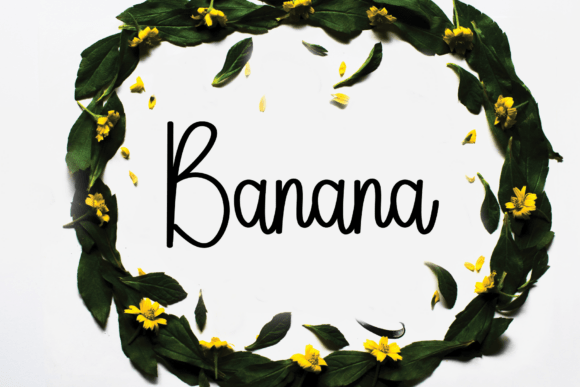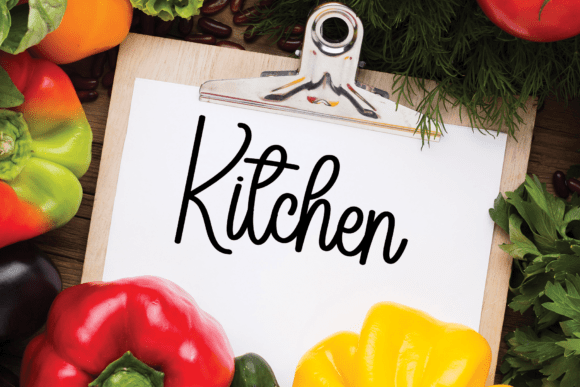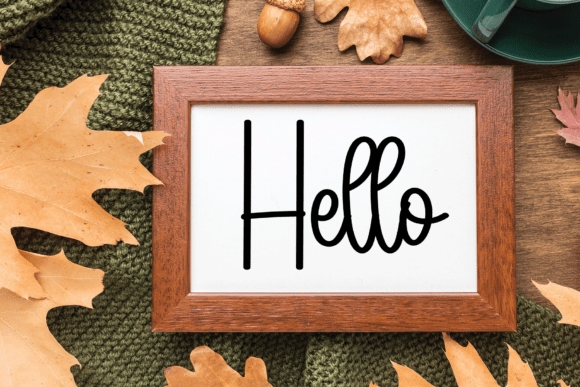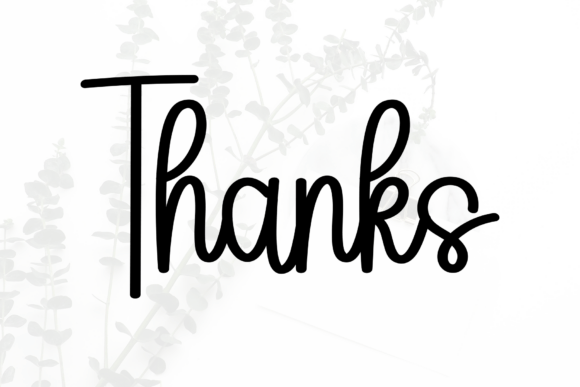
Introducing Amnesty Font: A Sweet and Beautiful Handwritten Delight
Are you a designer or crafter looking for a unique and charming font to add a personal touch to your projects? Look no further than Amnesty Font, a sweet and beautiful handwritten font that is sure to captivate your audience. With its distinctive characters that dance along the baseline, Amnesty Font is the perfect addition to any design project you wish to create.
What Makes Amnesty Font So Special?
Amnesty Font is a one-of-a-kind handwritten font that boasts a range of characteristics that set it apart from other fonts. Its sweet and beautiful appearance is achieved through the careful crafting of each character, which is designed to flow effortlessly along the baseline. This creates a sense of movement and energy, adding a cozy accent to any design project.
Features of Amnesty Font
• Handwritten with love: Amnesty Font is a genuine handwritten font, crafted with care and attention to detail to ensure a personal and authentic feel.
• Dancing characters: The characters in Amnesty Font are designed to dance along the baseline, creating a sense of movement and playfulness.
• Sweet and beautiful: With its delicate and charming appearance, Amnesty Font is the perfect choice for designers and crafters looking to add a touch of sweetness to their projects.
• Cozy accent: Amnesty Font is designed to add a cozy accent to any design project, making it perfect for a range of applications, from invitations and greeting cards to branding and packaging.
Amnesty Font is an ideal choice for designers and crafters looking to add a personal touch to their projects. Whether you’re creating invitations, greeting cards, or branding materials, Amnesty Font is sure to impress. Its unique and charming appearance makes it perfect for a range of applications, including:
• Invitations and greeting cards: Add a personal touch to your invitations and greeting cards with Amnesty Font’s sweet and beautiful appearance.
• Branding and packaging: Use Amnesty Font to create unique and eye-catching branding and packaging materials that will set your products apart.
• Digital and print projects: Amnesty Font is perfect for a range of digital and print projects, from social media graphics to brochures and flyers.
Why Choose Amnesty Font?
With so many fonts to choose from, why should you choose Amnesty Font? Here are just a few reasons:
• Unique and distinctive: Amnesty Font is a one-of-a-kind font that will set your projects apart from the crowd.
• High-quality design: Amnesty Font is designed to the highest standards, ensuring a crisp and clear appearance in all your projects.
In conclusion, Amnesty Font is a sweet and beautiful handwritten font that is sure to captivate your audience. With its distinctive characters that dance along the baseline, Amnesty Font is the perfect addition to any design project you wish to create. Whether you’re a designer or crafter, Amnesty Font is an ideal choice for adding a personal touch to your projects. So why wait? Download Amnesty Font today and start creating stunning designs that will leave a lasting impression!